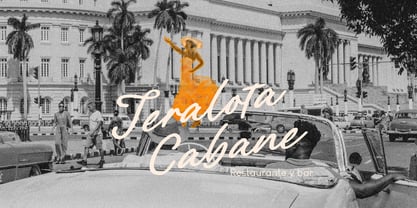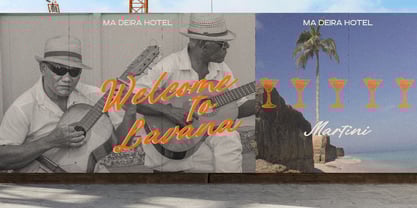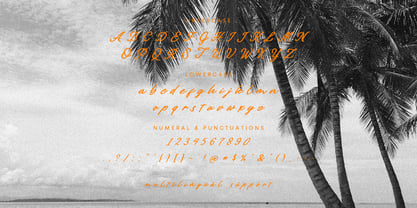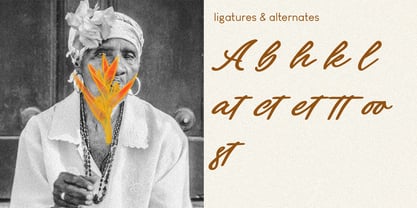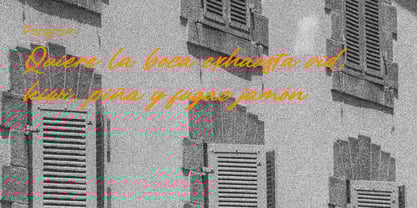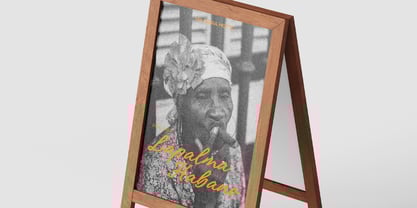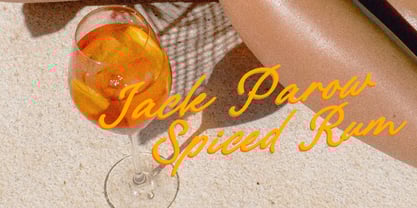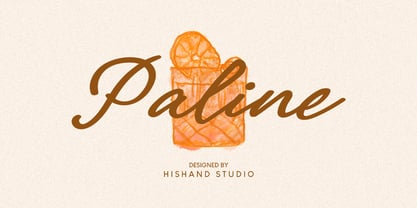
Paline
Paline is a graceful script font created by Hishand Studio, designed to capture the beauty of natural handwriting with a refined touch. Its smooth, flowing strokes and balanced letterforms give it a harmonious rhythm, making it both visually pleasing and highly readable. The font features elegant curves and well crafted connections between letters, adding a sense of sophistication without feeling overly formal.
Paline is versatile in its personality it can convey warmth and friendliness while maintaining a polished, professional appearance. Each character is carefully shaped to create consistency across words, ensuring your typography feels cohesive and intentional. With its classic script style, Paline is ideal for logos, signatures, headlines, and any design that calls for a timeless typographic voice.
Whether used at large display sizes or in more delicate applications, Paline offers a refined charm that enhances your message with style and grace. Complete with
• uppercase
• lowercase
• ligatures
• alternates
• multilingual support